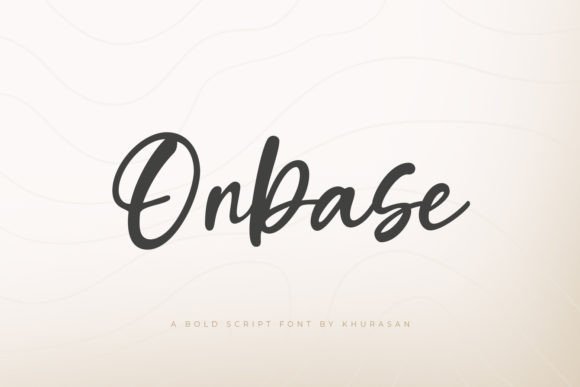
Introducing Onbase Font, the ultimate script font designed to take your creative projects to new heights! Crafted with precision by the talented Khurasan, this font is a must-have for anyone looking to add a touch of elegance and modernity to their designs.
Onbase Font is more than just a font; it's a powerful tool that will transform your posters, logos, magazines, book covers, banners, and much more. With its clean and stylish appearance, this font exudes sophistication and professionalism, making it the perfect choice for your next project.
What sets Onbase Font apart is its versatility. It effortlessly adapts to a wide range of projects, ensuring that your creative ideas will always stand out from the crowd. Whether you're designing a CV, cover letter, or any other professional document, this font will make a lasting impression on your readers.
When you download Onbase Font, you gain access to a world of endless possibilities. Let your imagination run wild as you explore the countless design options this font offers. Its elegant and modern script will captivate your audience, leaving them in awe of your creativity.
Don't miss out on the opportunity to elevate your designs with Onbase Font. With its captivating charm and attention-grabbing appeal, this font is guaranteed to leave a lasting impression. Stand out from the competition and make your creative projects shine with the help of this remarkable script font.